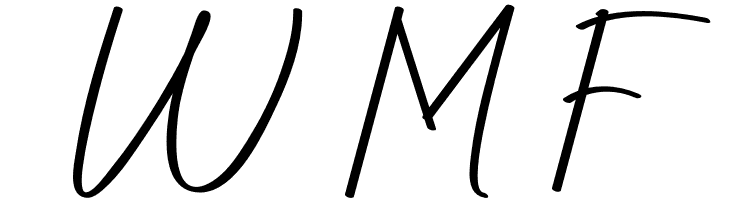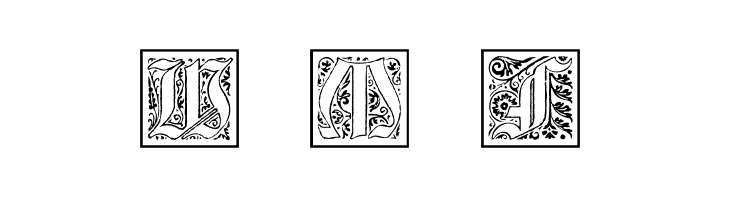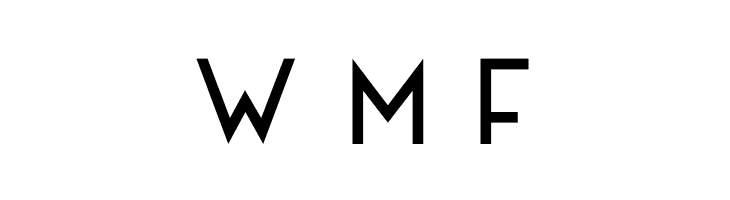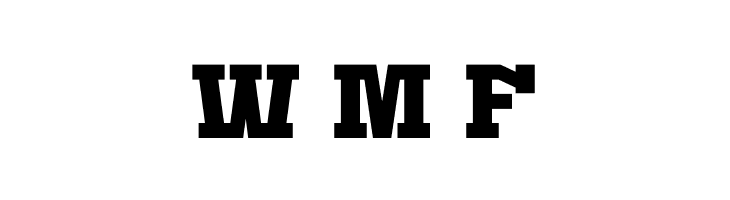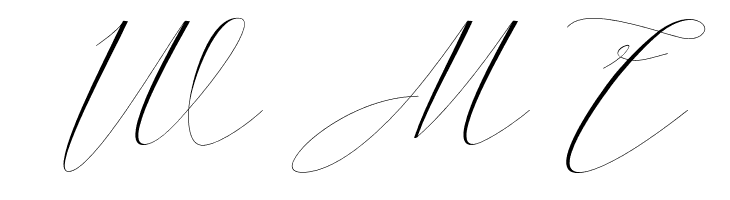
AbeatbyKai Font
Font by www.KaiBuskirk.com
A modern, geometric sans-serif font with a clean and balanced design.
Bebas Kai Font
Dharma Type - Ryoichi Tsunekawa - www.myfonts.com/foundry/Dharma_Type/?refby=dharmatype
A bold, clean sans-serif font with tall, narrow letterforms.
Kaiser Font
Font by Chank Co. - www.chank.com
Chinese Cally TFB Font
truefonts.blogspot.com
A fluid and expressive calligraphy font inspired by traditional Chinese brush writing.
Simplifica Font
Måns Grebäck
A clean, minimalist font with a geometric and modern design.
Seagram tfb Font
A bold blackletter font with a medieval, gothic style.
CallieHand Font
Font by Callie Renee Roberson - www.CallieRenee.com
A graceful script font with fluid, cursive strokes and a modern calligraphic style.
Kaileen Font
Font by Kreative Korporation - www.kreativekorp.com
A playful, hand-drawn font with whimsical stick figure illustrations integrated into the letters.
Aeg Flyon Now Font
dcoxy
A modern, sleek font with elongated, narrow characters and a sophisticated look.
Orniste tfb Font
truefonts.blogspot.com
A decorative font with intricate patterns and a vintage flair.
Aeg Flyon Now bold Font
Brittney Murphy
A bold, modern font with tall, narrow characters and consistent stroke thickness.
SuastOrnad tfb Font
truefonts.blogspot.com
A bold, decorative font with intricate, hand-drawn patterns inside each character.
KaiserzeitGotisch Font
Font by Dieter Steffmann
An ornate Blackletter font with intricate details and a gothic aesthetic.
floral flower Font
truefonts.blogspot.com
A decorative font with intricate floral patterns enhancing each character.
Kaiju Monster__G Font
Font by Goma Shin - Shintarou Nakayama www.geocities.jp/gomarice_font/
A bold, angular font with a geometric and impactful design.
Aeg Flyon Now bold cursive Italic Font
Måns Grebäck
A bold, italic cursive font with elongated, flowing letterforms.
KaiyilaScriptDEMO Font
Font by Barland
A decorative script font with elegant swashes and high contrast strokes.
Simple tfb Font
A modern, rounded font with clean lines and even spacing.
GRENDEL BOLD Font
Chung-Deh Tien - www.redbubble.com/people/Kaiju